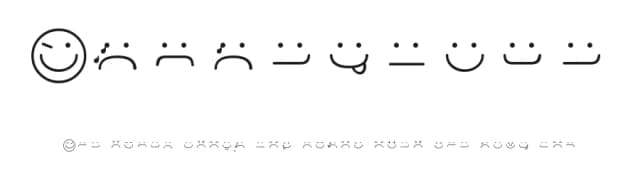
About Talk Font
Talk is a dingbat font designed by Jonathan Macagba. It includes 67 glyphs, TTF (TrueType) format, and 89 languages. Talk is free to download; check the license details on this page before commercial use. Dingbat fonts like Talk work best for icons, ornaments, bullet points, and decorative accents.
Talk Font is a versatile dingbats font that works for both headings and body text. Pair it with a contrasting sans-serif or serif font to add visual interest and a clear distinction between titles and body copy.
Talk Font
Talk Font is a dingbats typeface by Jonathan Macagba, ideal for logos, invitations, branding, and creative projects.